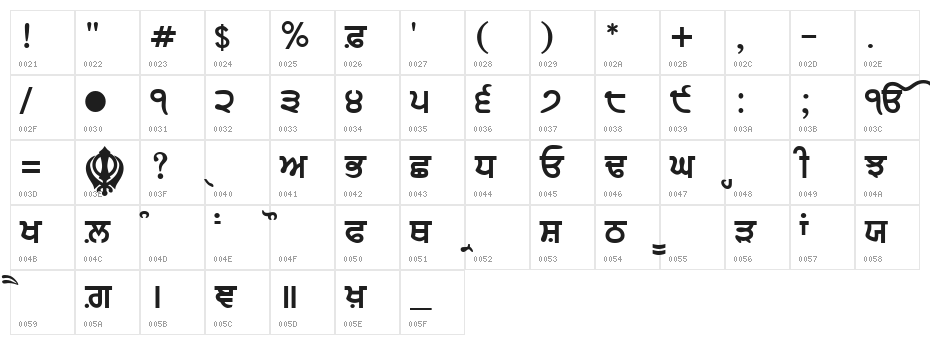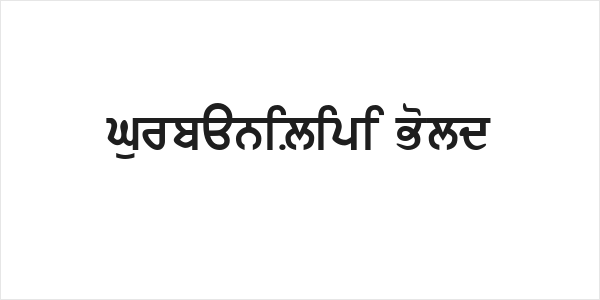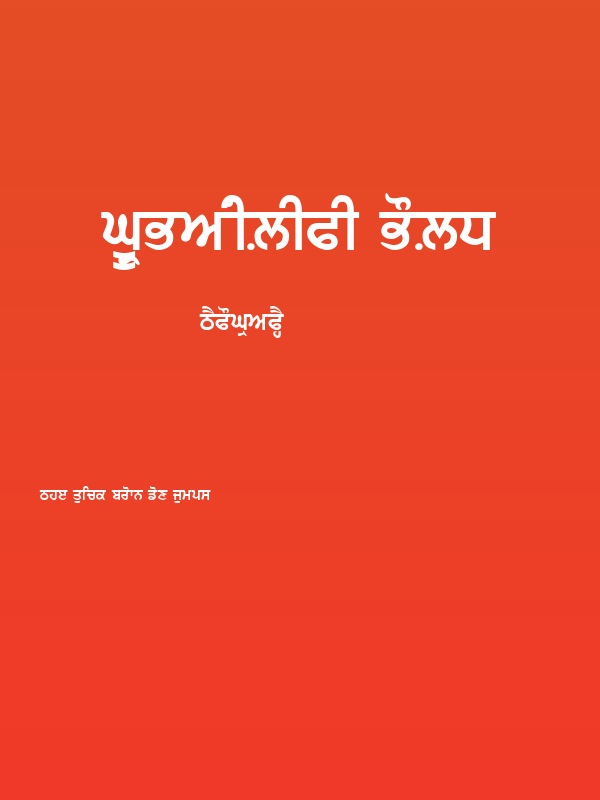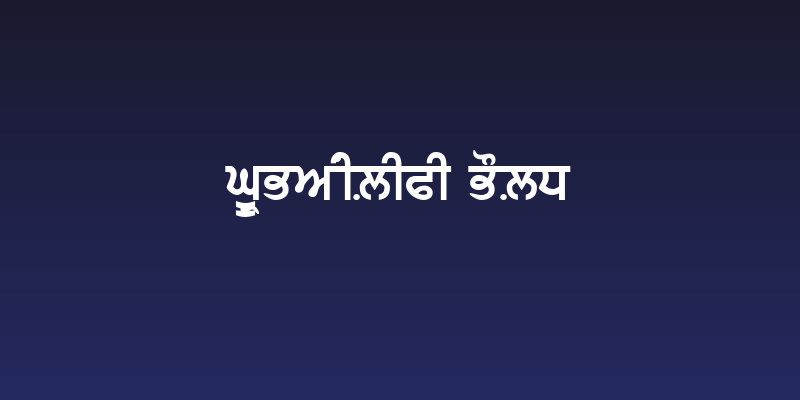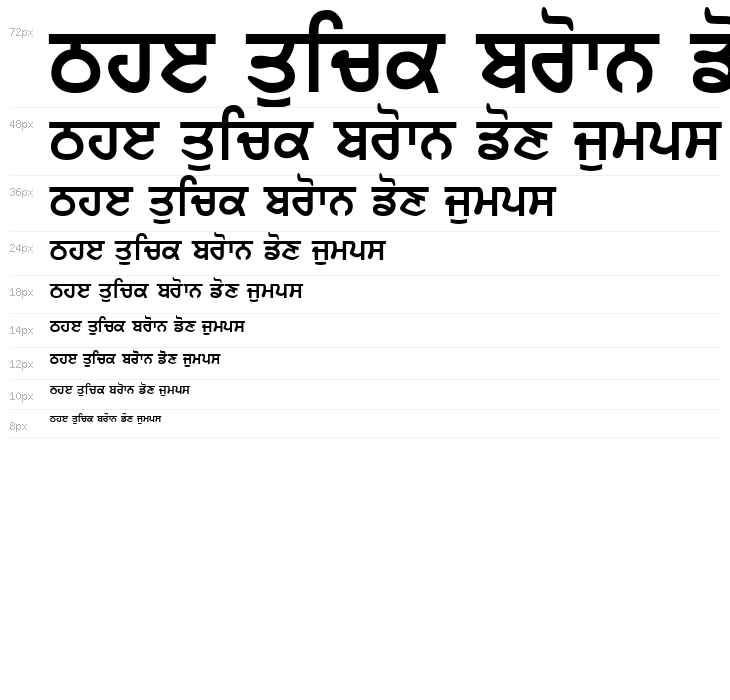
GurbaniLipi Bold Font
GurbaniLipi Bold Description
This font features a bold and striking design, characterized by its thick strokes and high contrast. The characters are well-defined with a modern aesthetic, making it suitable for impactful visual communication. The script is clean and legible, with a unique style that incorporates traditional elements. The spacing between characters is balanced, ensuring readability while maintaining a strong visual presence. This font is ideal for projects that require a bold statement, combining both contemporary and classic influences to create a versatile typeface.
| Proposed Projects | Ideal for headlines, posters, branding, and any project needing a strong visual impact. |